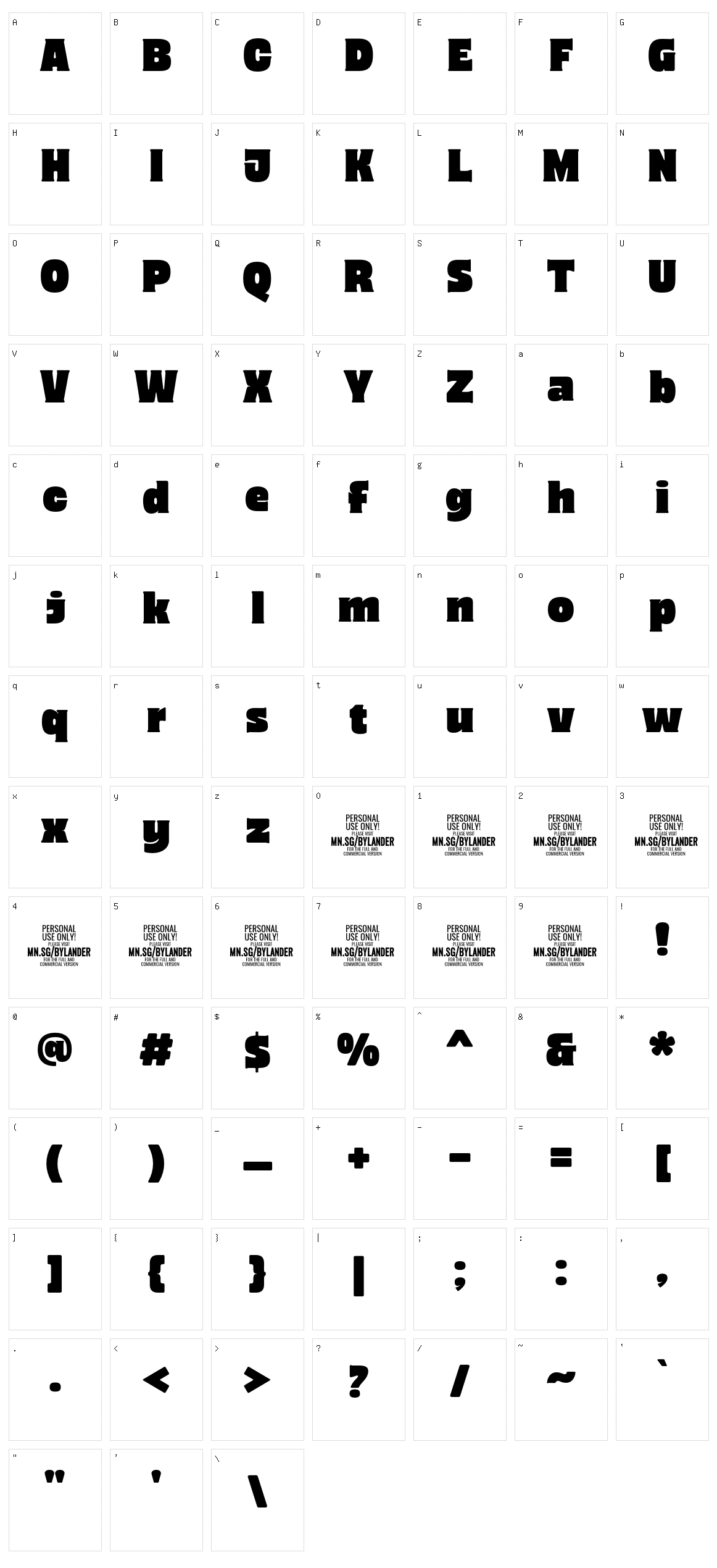
Bylander is a stateful serif typeface.
With robust, heavy letterforms reminiscent of a foundry's hammer hitting molten metal, and an unpaired weight, Bylander's characters seem forged from the core of the Earth.
Its rounded corners whisper tales of smoothened river stones, and its gentle curves combined with its industrial mass makes Bylander a paradox; both intimidating in its boldness and welcoming in its approach. This work stands as a testament to the art of typographical design, where contrasts coalesce into a harmonious dance. Bylander leaves an indelible impression â heavy, yet refined; solid, yet fluid.
The font is built with advanced OpenType functionality and has a guaranteed top-notch quality, containing stylistic and contextual alternates, ligatures, and more features; all to give you full control and customizability. It has extensive lingual support, covering all Latin-based languages, from Northern Europe to South Africa, from America to South-East Asia. It contains all characters and symbols you'll ever need, including all punctuation and numbers.